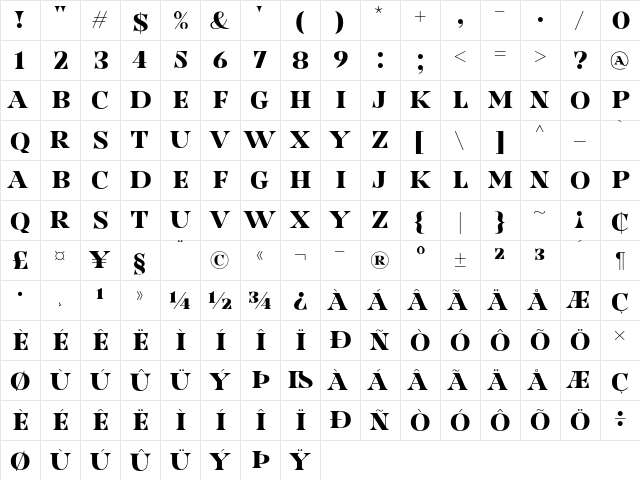
Nesdate October Ten Regular
| Foundry | 7NTypes |
| Designer | Situjuh Nazara |
Design Context for Nesdate October Ten Typeface
Nesdate October Ten offers clean, dependable letterforms without strong stylistic allegiance, making it a practical choice for designers who need flexibility.